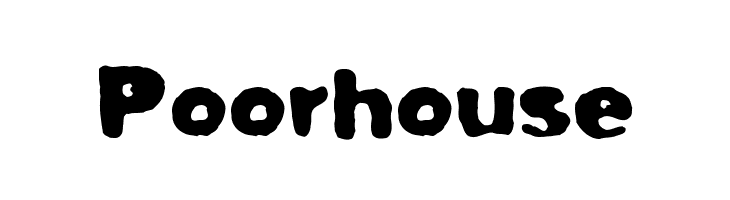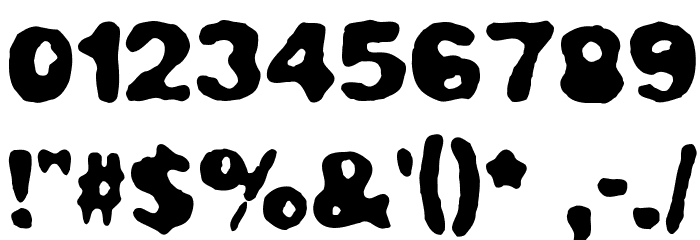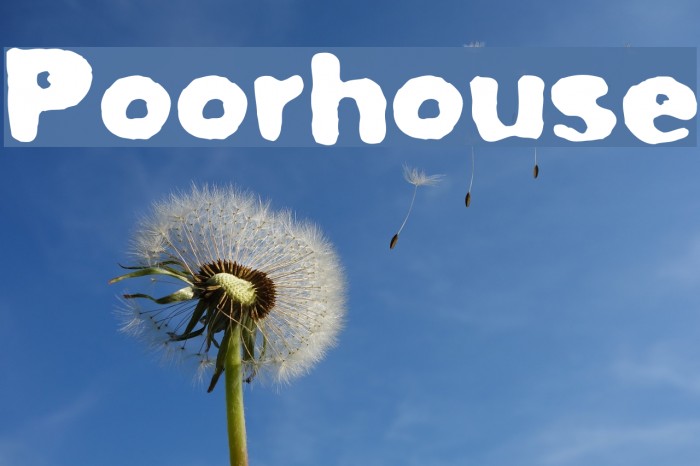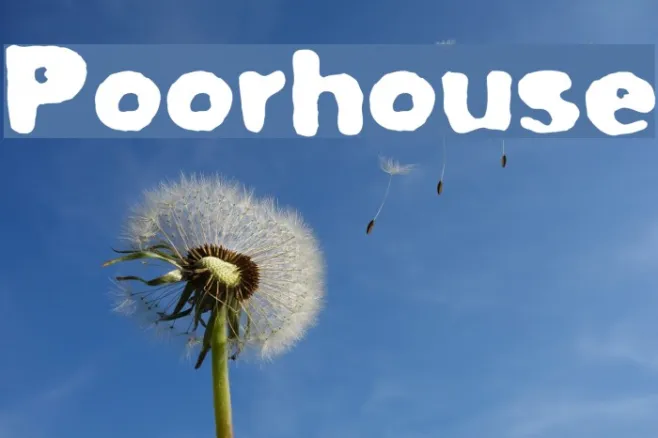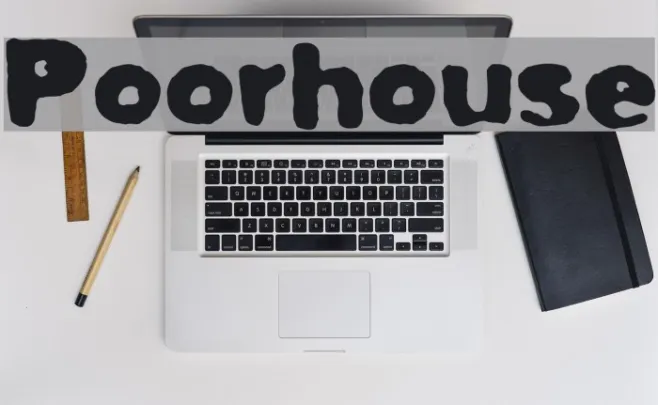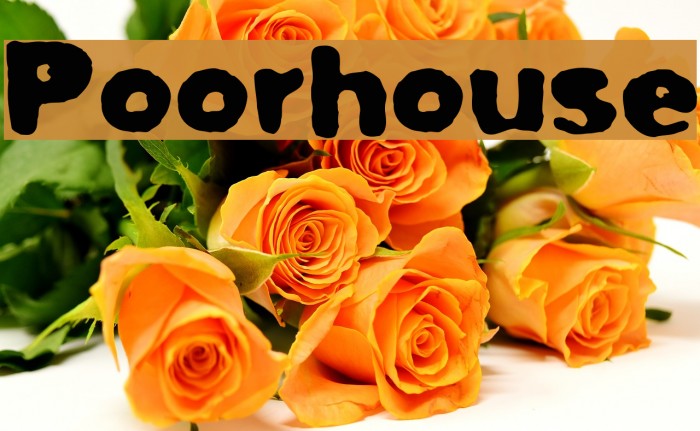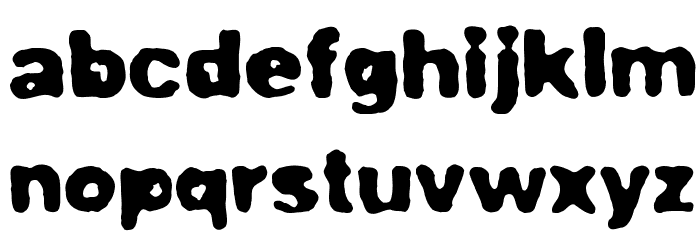
Poorhouse Font
This font features a bold and playful design with thick, uneven strokes that give it a hand-drawn appearance. The characters are rounded and slightly irregular, adding a whimsical and informal touch. The uppercase and lowercase letters maintain a consistent style, with the lowercase being slightly smaller and more compact. Numbers and special characters follow the same playful aesthetic, making the font suitable for creative and casual projects. Its unique style makes it stand out, ideal for designs that require a fun and engaging look.
A bold, playful font with thick, uneven strokes and a hand-drawn appearance.
• Font: Poorhouse
by NicholasJudy456
• Proposed Projects: Ideal for children's books, comic strips, playful branding, and casual event invitations.
• Category: Decorative/Display
• Contrast: Low
• Overall Style: Playful, Whimsical
• Use Case: Headlines, Logos, Posters